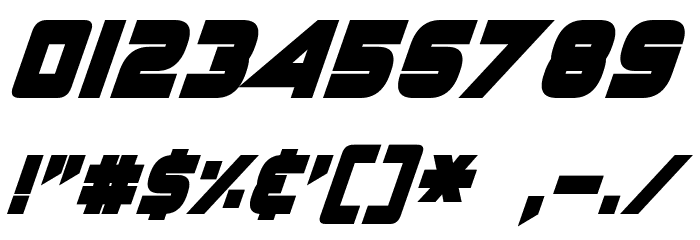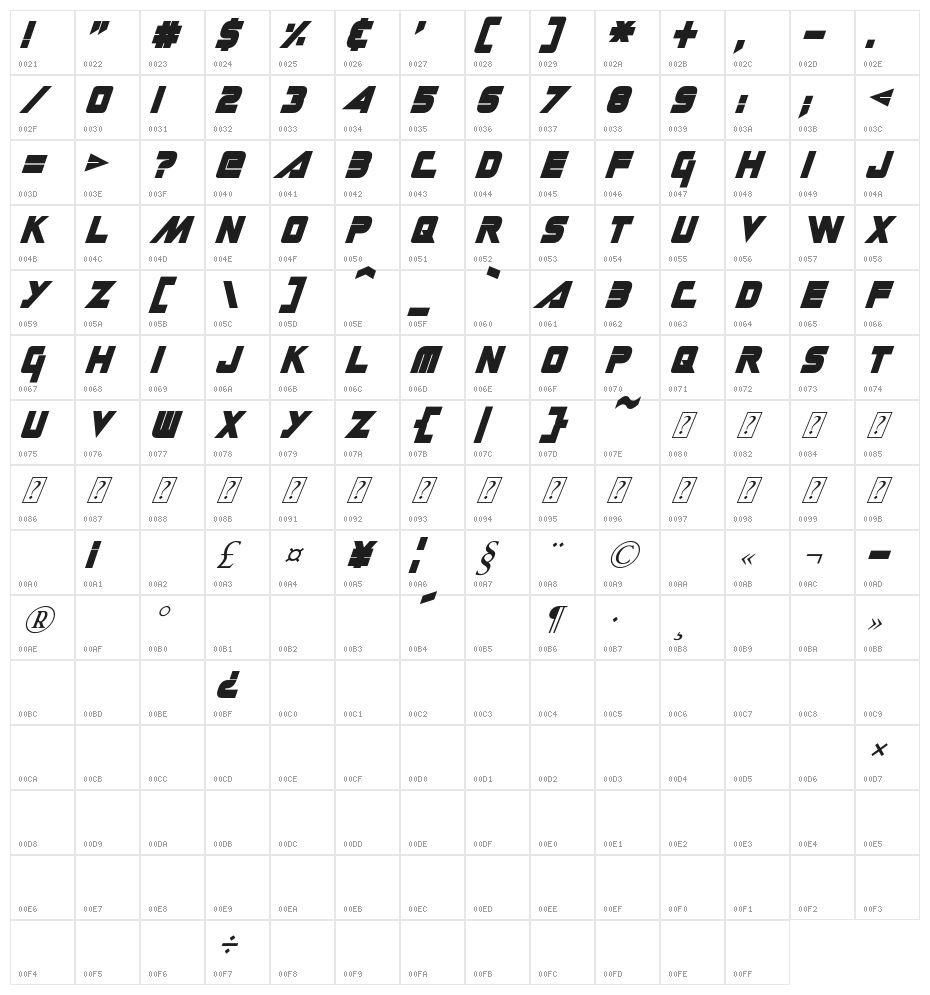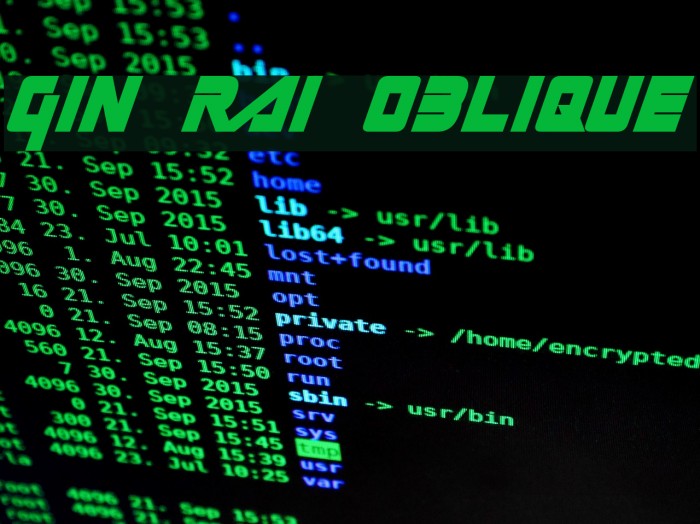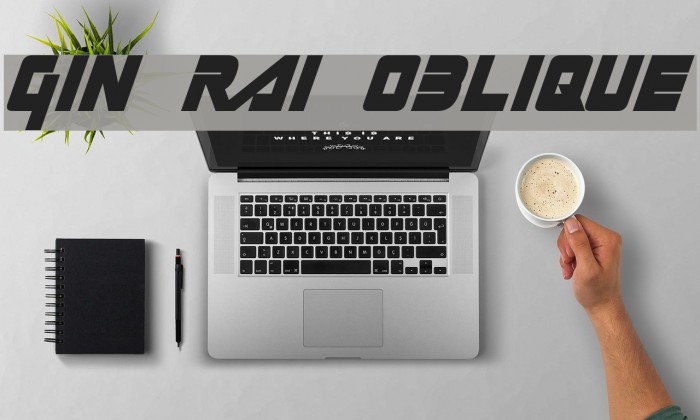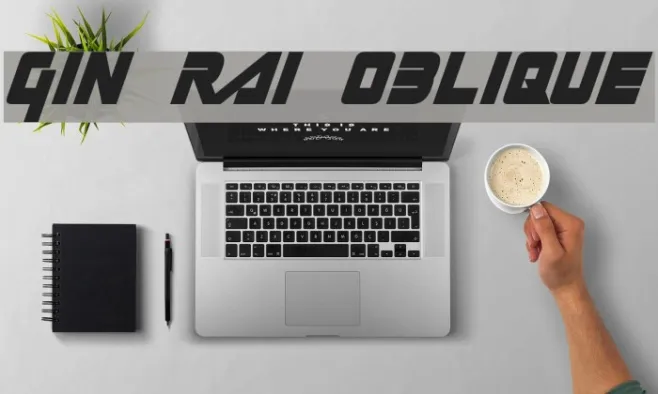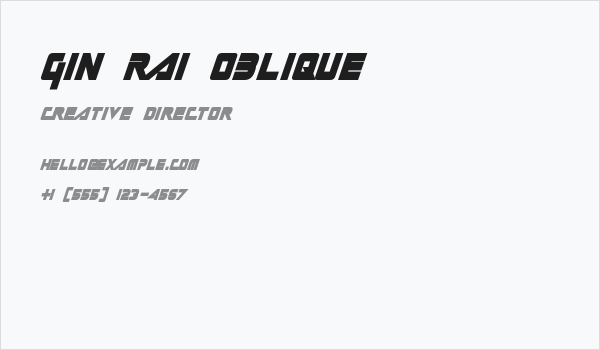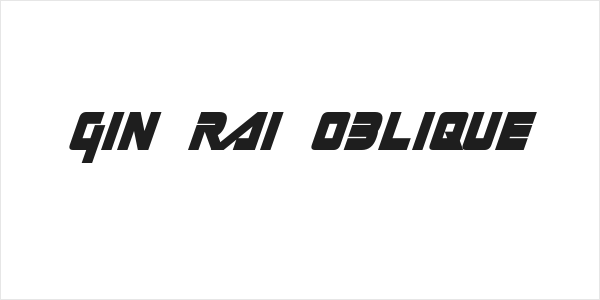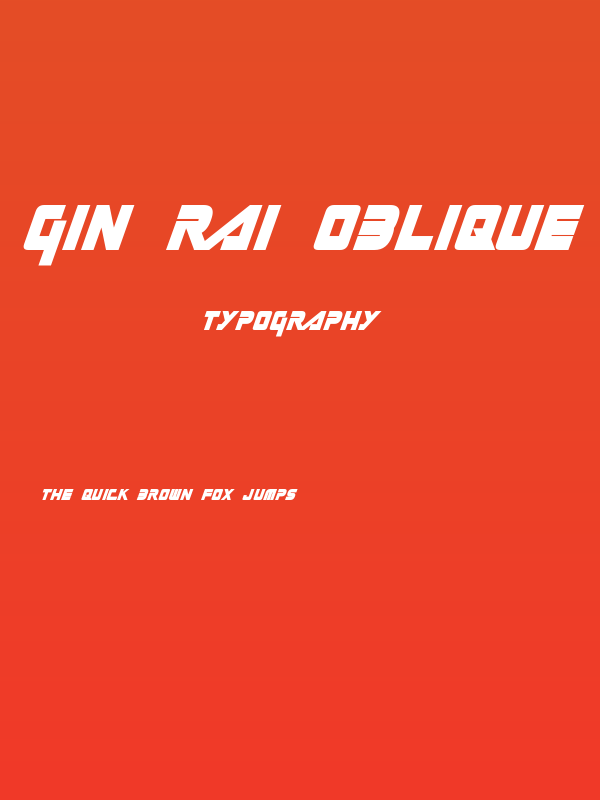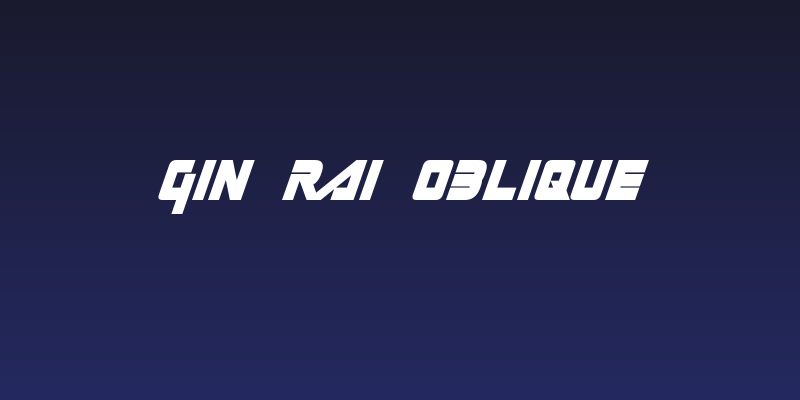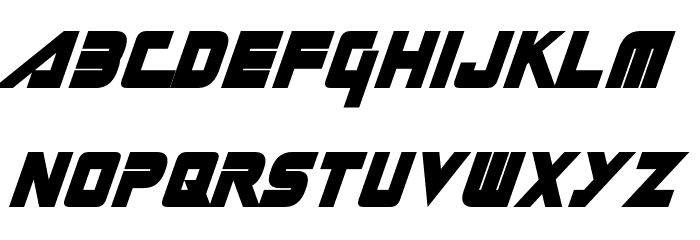
Gin Rai Oblique Font
Gin Rai Oblique Description
This font features a bold and dynamic design with a distinct oblique slant, giving it a sense of motion and energy. The characters are wide and angular, with sharp edges and a futuristic aesthetic. The uppercase letters are particularly striking, with a strong presence that commands attention. The numerals and special characters maintain the same bold and angular style, ensuring consistency across all glyphs. This font is ideal for projects that require a modern and impactful look.